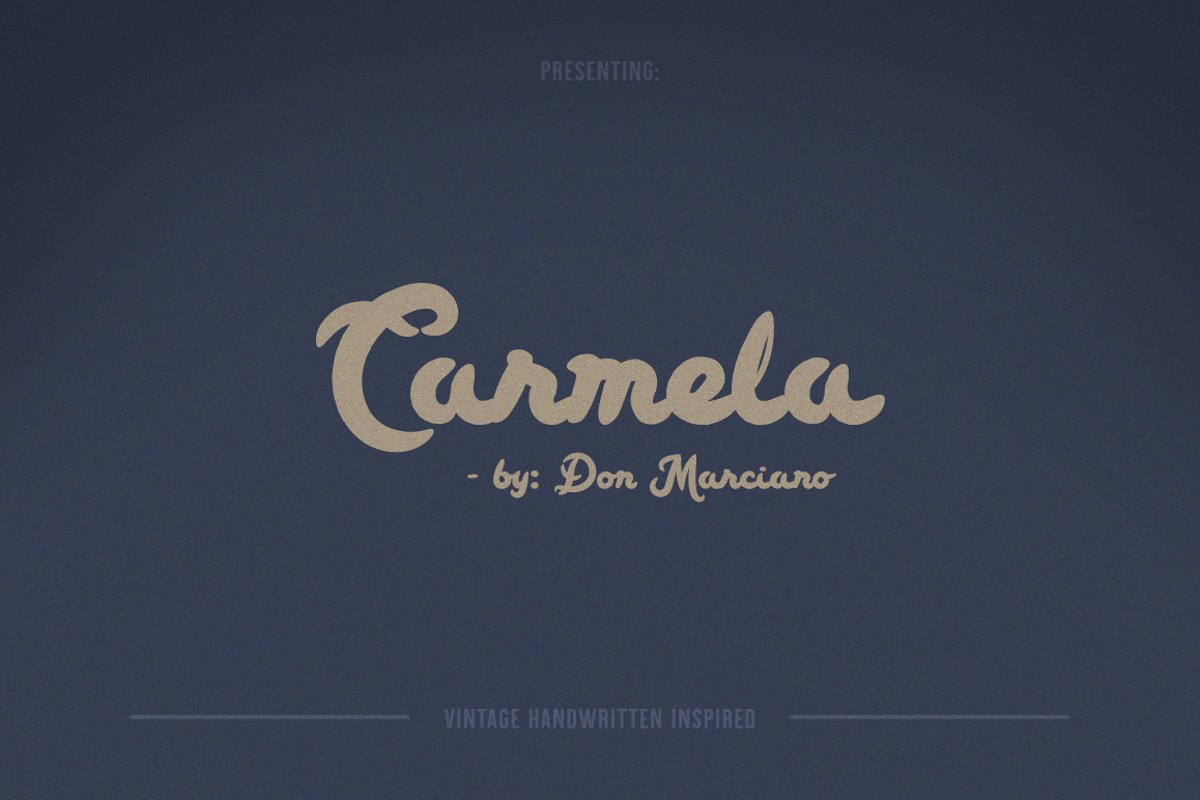
Carmela Bold
Carmela-Script
Carmela is a vintage handwritten inspired rough font, crated from a thick short brushstroke for that out at sea, far into the horizon, too late to go back, kind of feeling. The font brings personality and depth to the design canvas, it will help you achieve your creative goals with a distinct touch. An OTF file format with a total count of 279 glyphs, upper and lower cases. I’ll appreciate your support if possible. Enjoy!